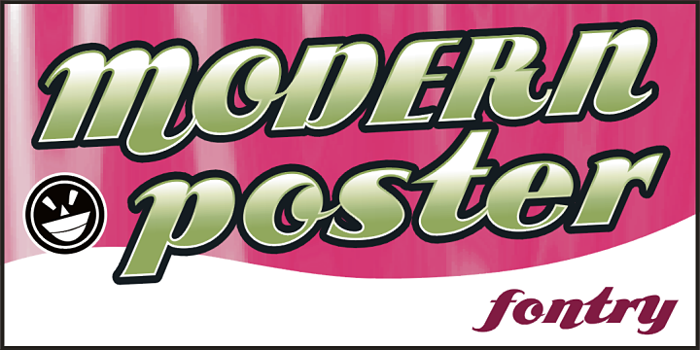
ARB 85 Poster Script JAN-39 Font
ARB 85 Modern Poster JAN-39 by Michael G Adkins
Beginning in January, 1932, Becker, at the request of then-editor E. Thomas Kelly, supplied SIGNS of the Times magazine's new Art and Design section with an alphabet a month, a project predicted to last only two years. Misjuding the popularity of the "series," it instead ran for 27 years, ending finally two months before Becker's death in 1959, for a grand total of 320 alphabets, a nearly perfect, uninterrupted run. In late 1941, almost ten years after the first alphabet was published, 100 of those alphabets were compiled and published in bookform under the title, "100 Alphabets," by Alf R. Becker.
As published in January, 1939, this is the description that accompanied Becker's 85th alphabet, Modern Poster Script:
This is MODERN POSTER SCRIPT--Alphabet No. 85, an attractive style with swing and highly suitable for modern poster and card work. It is heavy and bold, yet graceful, and it can be made with good speed.